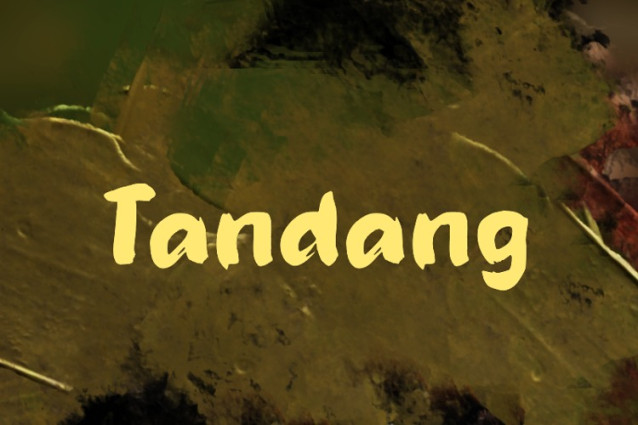
Tandang Font
Tandang Font is a hand drawn brush font. It is perfect for logos, branding, wedding invitations, business cards, greeting cards, posters, magazines, social media, procreate fonts, planner prints and websites.